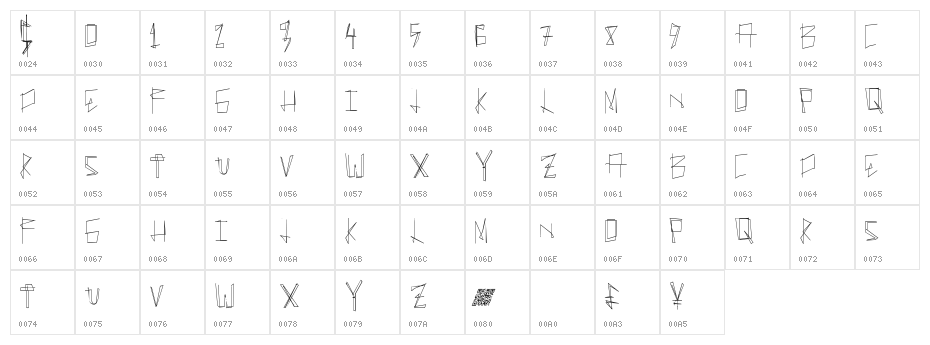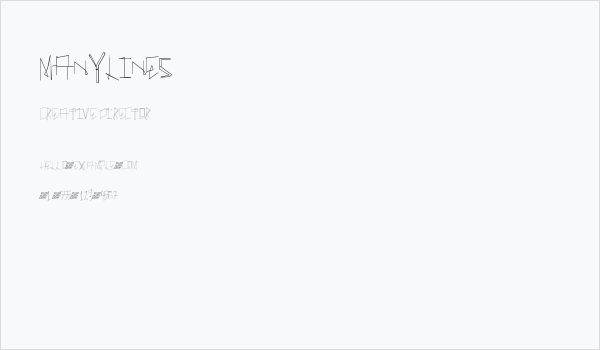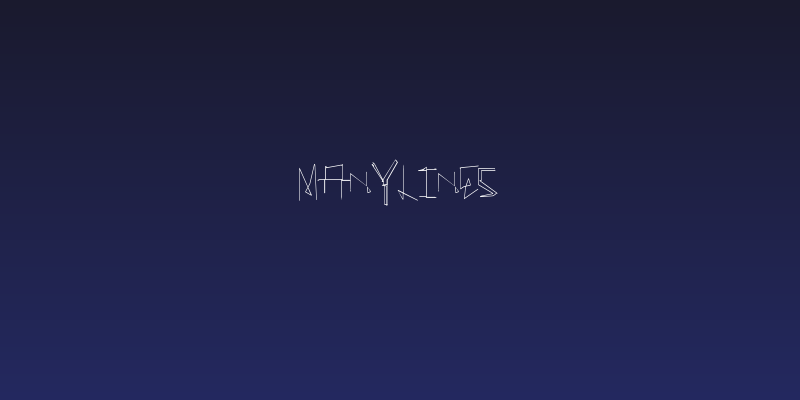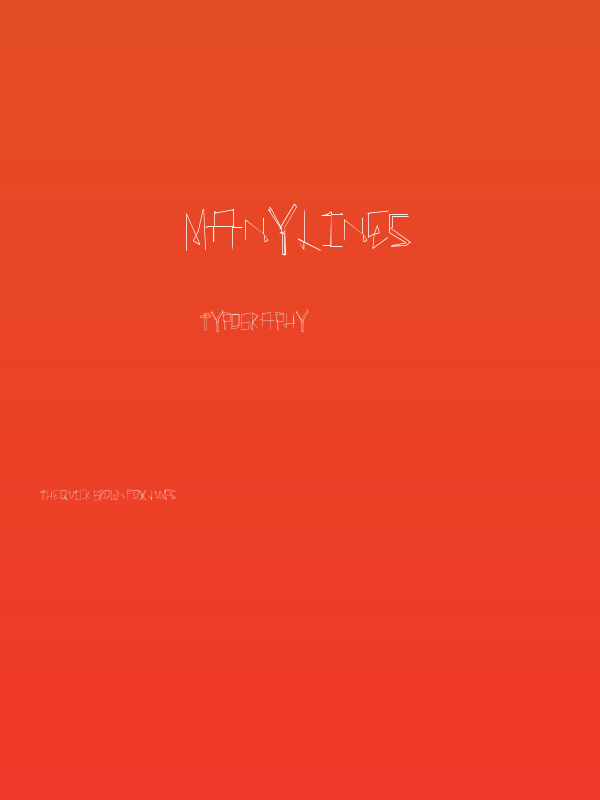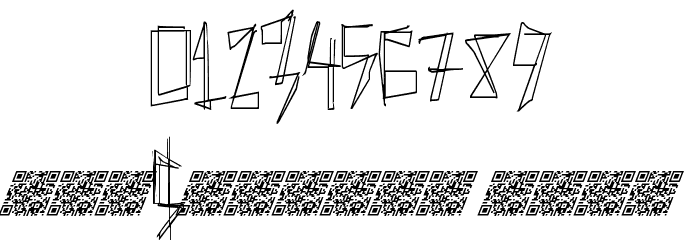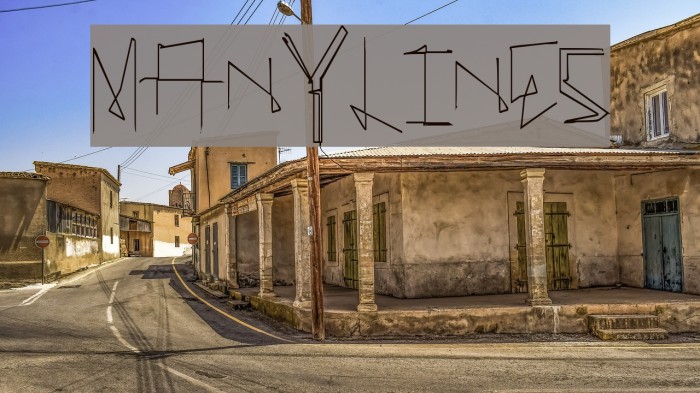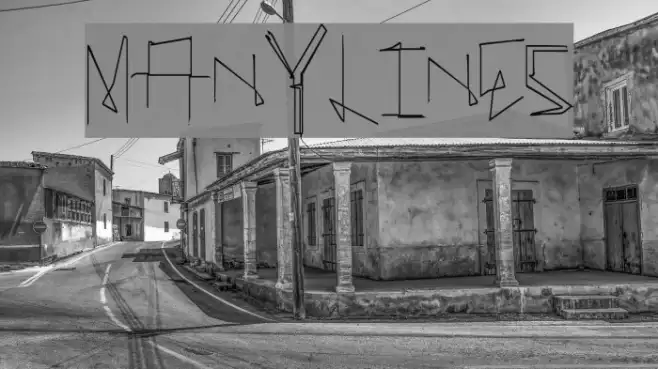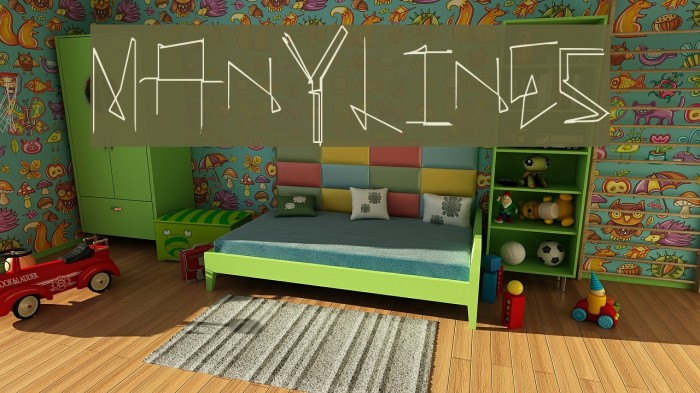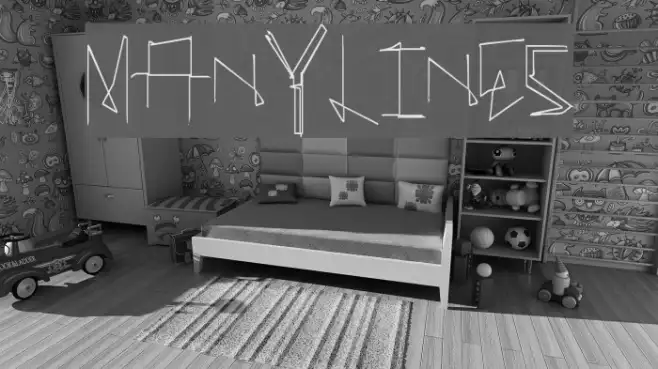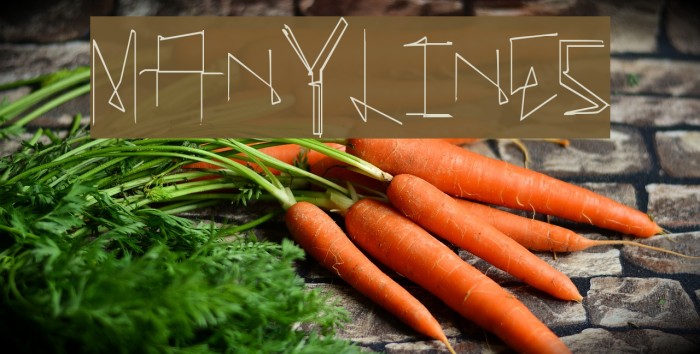
ManyLines Font
ManyLines Description
This font features a highly unique and abstract design, characterized by its use of multiple intersecting lines to form each character. The letters are constructed with a geometric approach, giving them a fragmented and edgy appearance. The uppercase and lowercase letters maintain a consistent style, with sharp angles and a sense of movement. Numbers and special characters follow the same design principles, ensuring a cohesive look across all elements. The font's distinct style makes it stand out, offering a modern and artistic flair that is both intriguing and visually striking.
| Use Case | Logos, Headlines, Artistic displays |
| Proposed Projects | Ideal for modern art projects, album covers, edgy branding, and creative posters. |